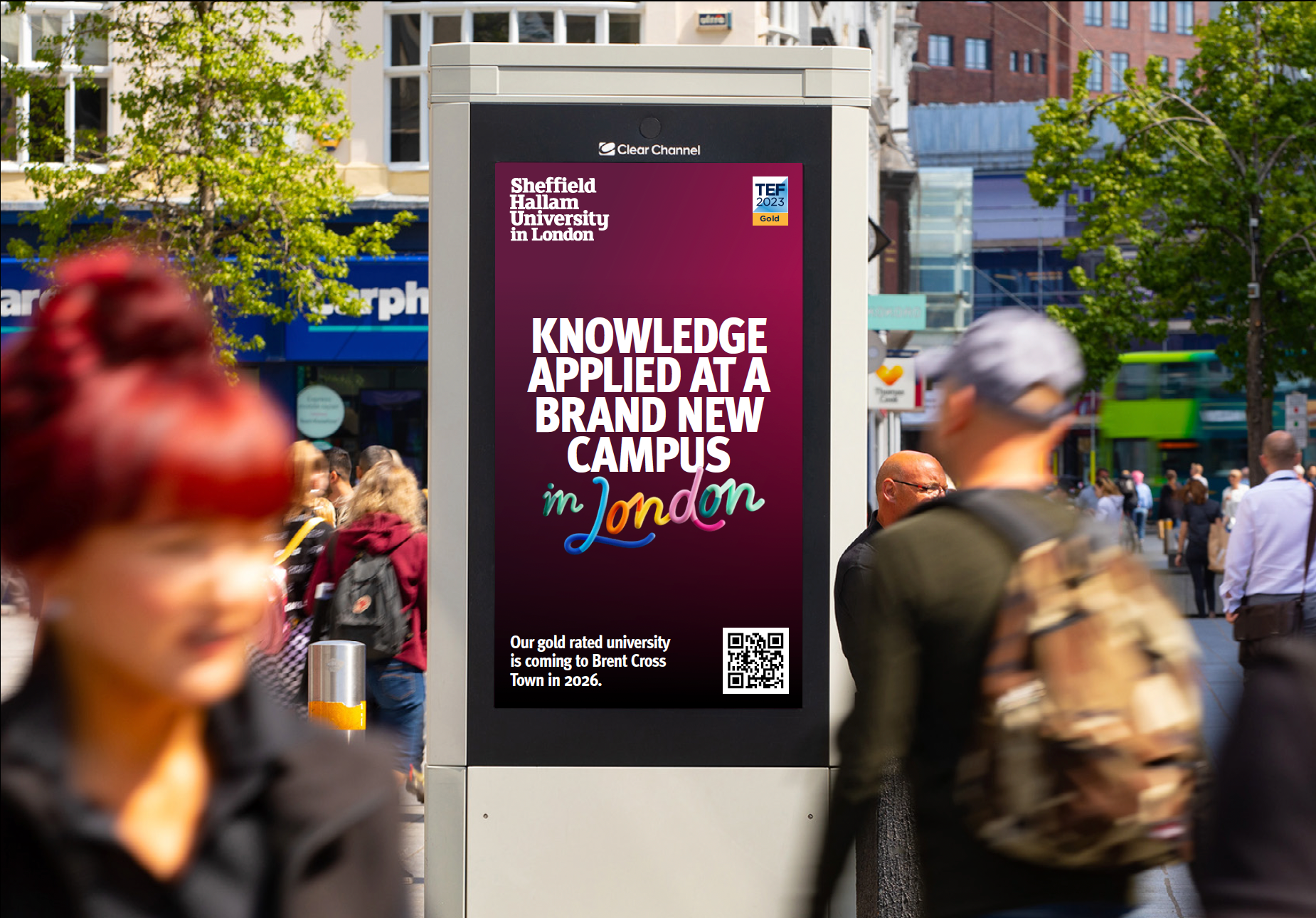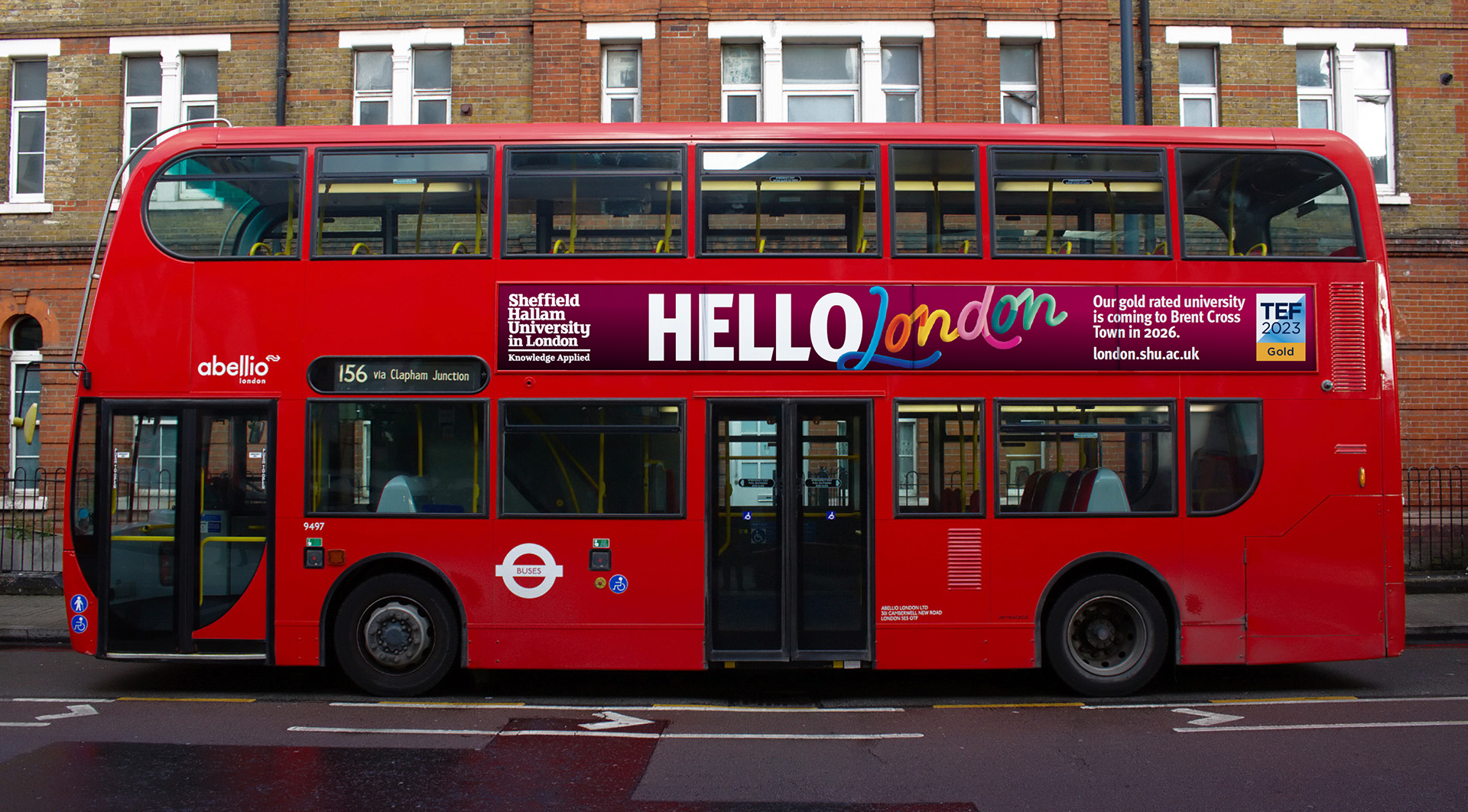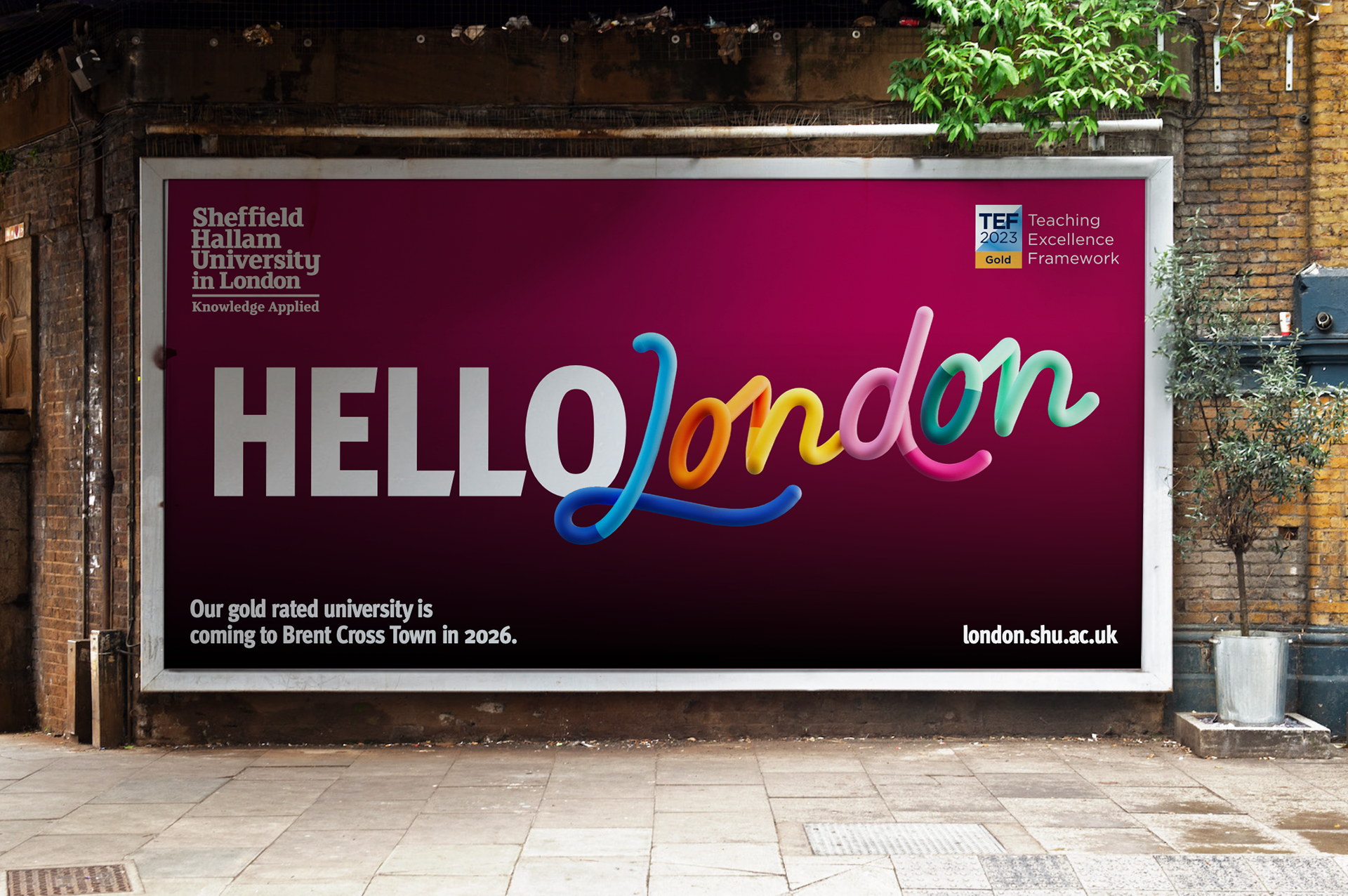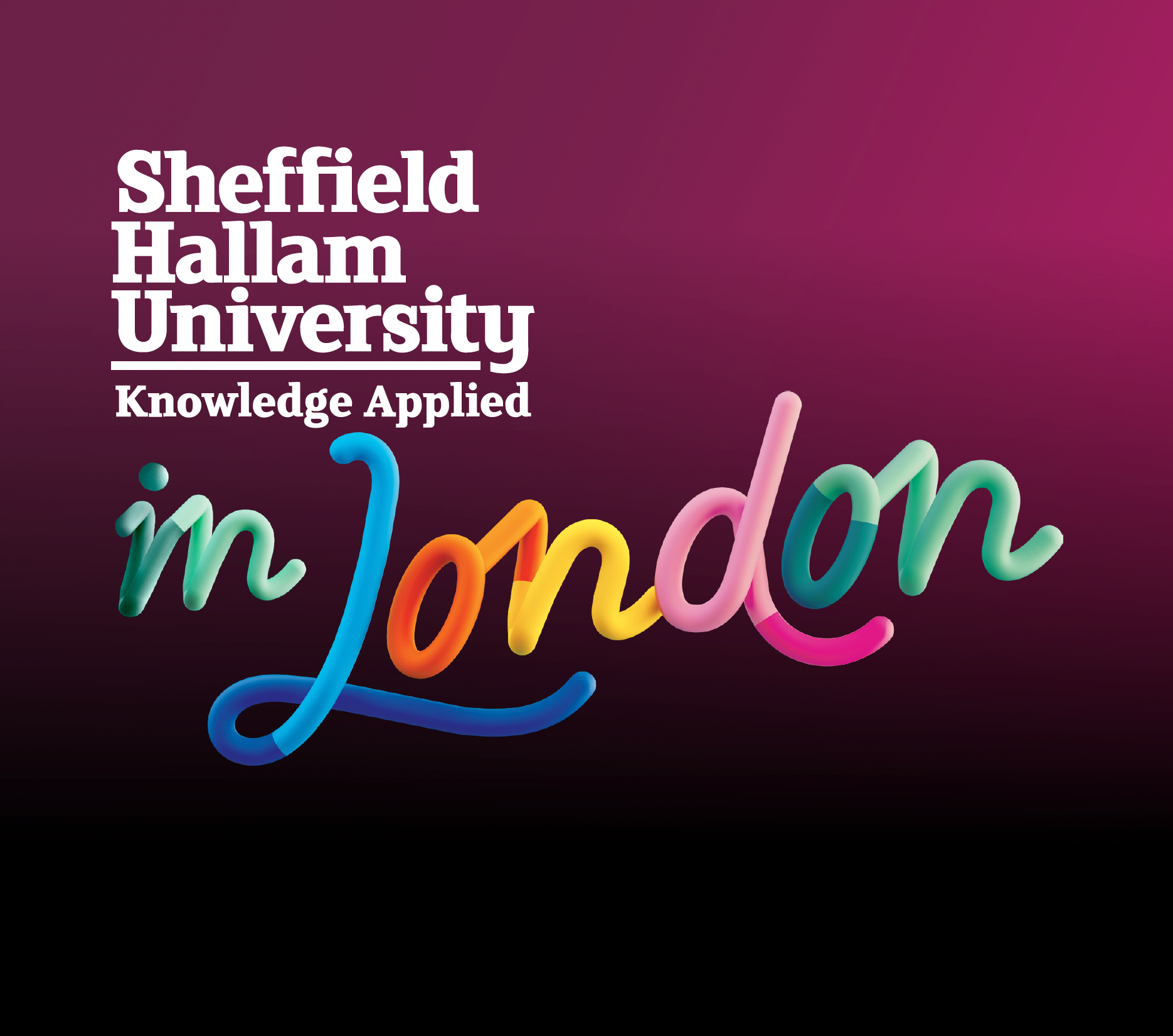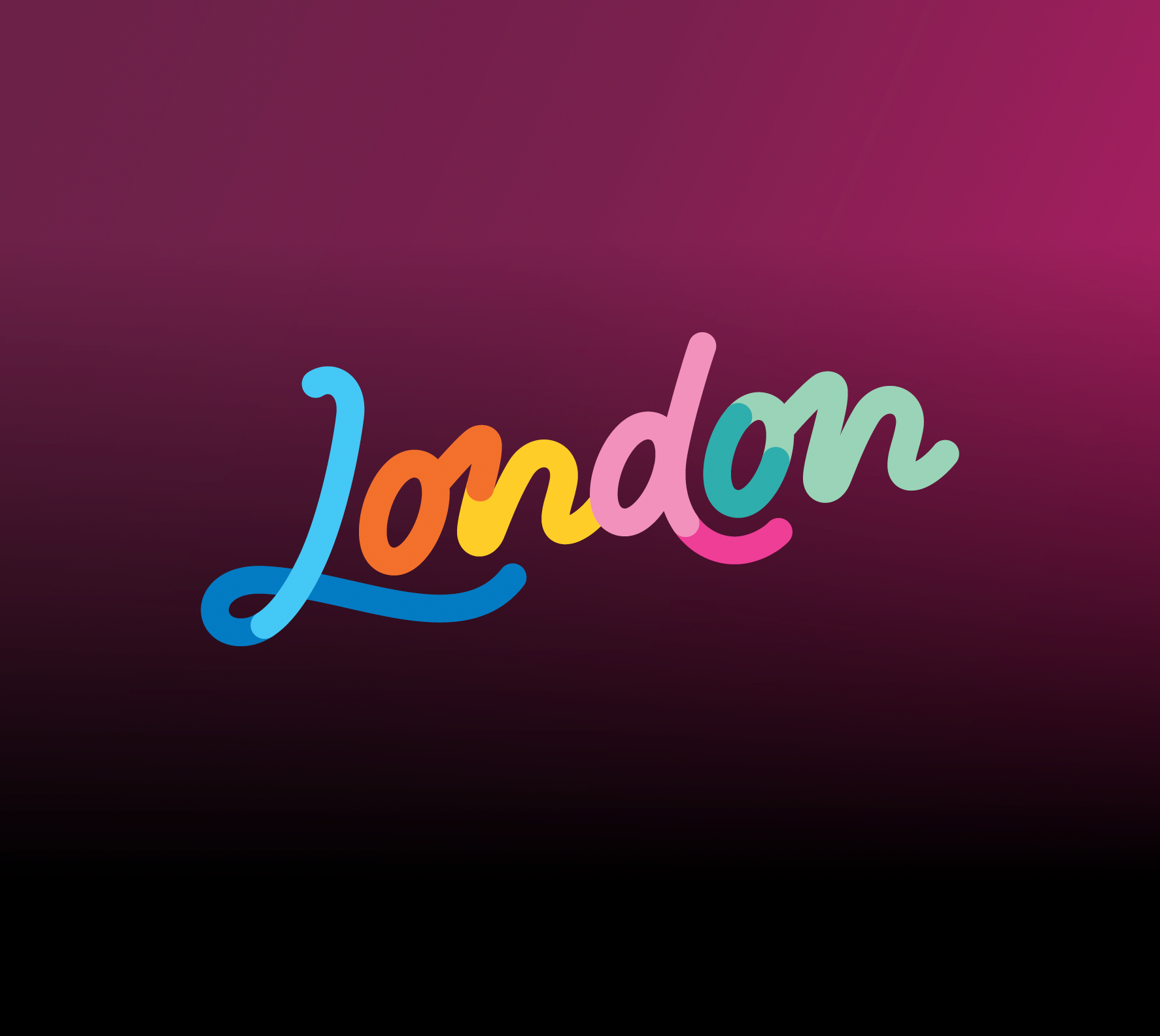
Lettering for Sheffield Hallam's campaign to advertise their new London based campus. The letters and colours
were a nod to the London tube lines. They were then made 3D which contrasted well with the more conventional typeface to pick out the word London. [Hired by Peter and Paul agency].